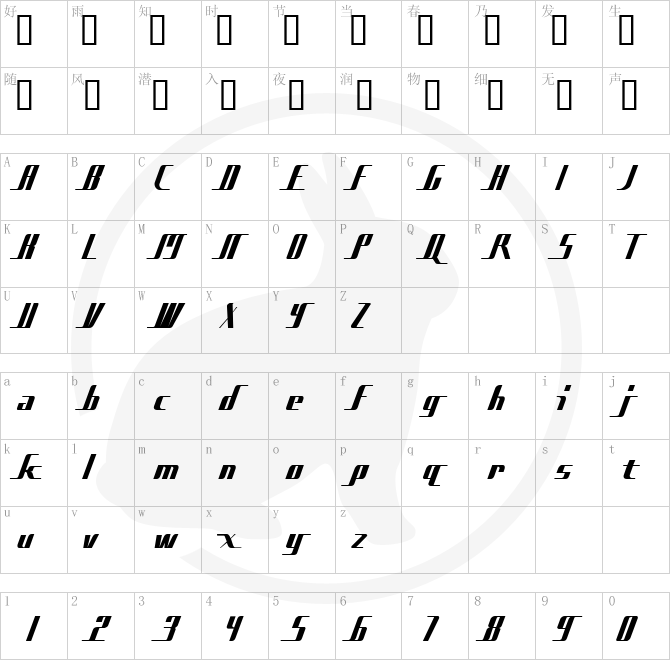
- Font Name:Sad Films
Sad-Films-copy-2-.ttf is a very beautiful artistic font, Sad-Films-copy-2-.ttf is widely used in the design and printing of various books and pictures,Sad-Films-copy-2-.ttf has a strong visual impact,Sad-Films-copy-2-.ttf is a commonly used font in newspapers, magazines and books, and is used in posters, e-commerce Poster design, store design, logo design, font design and other fields.Sad-Films-copy-2-.